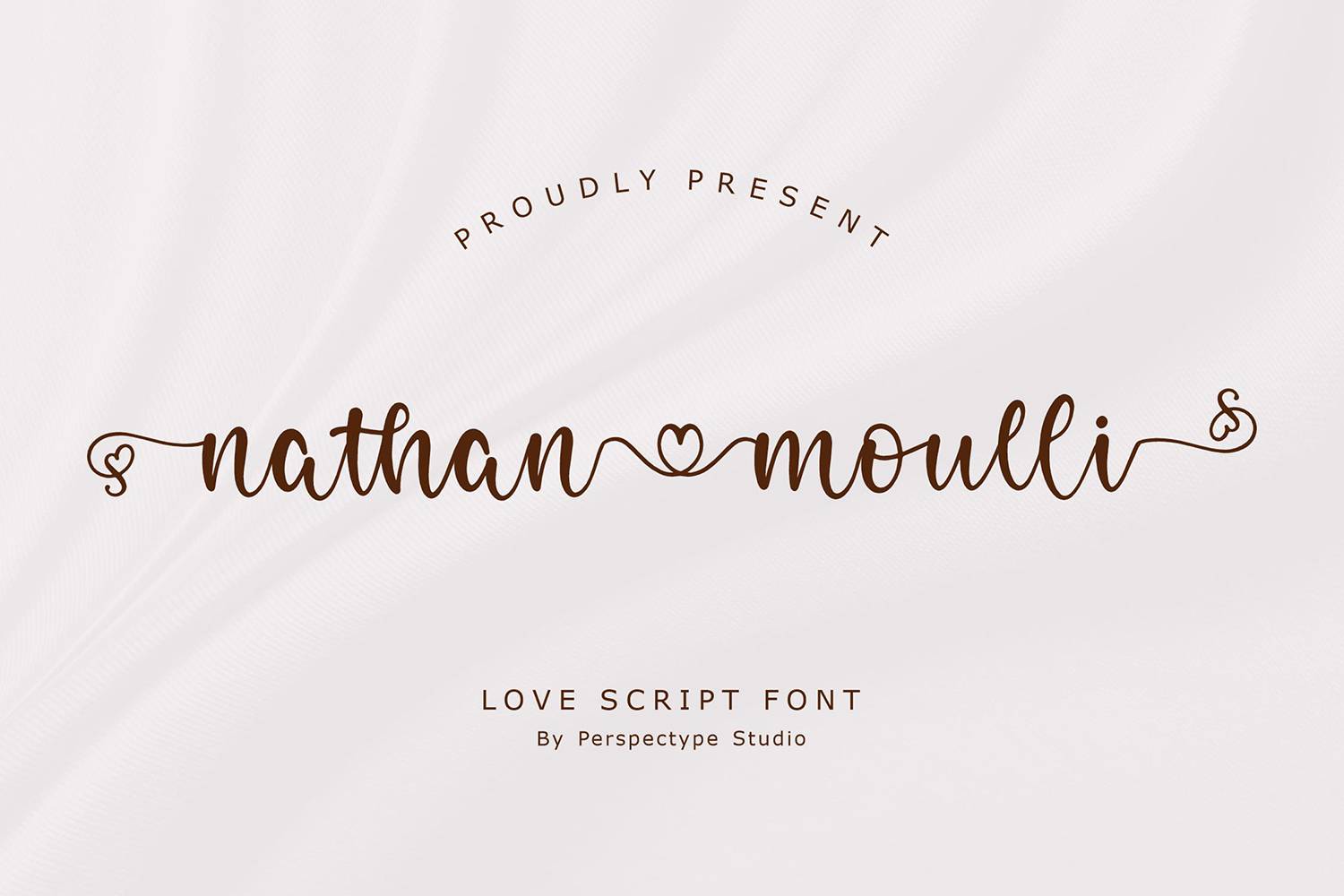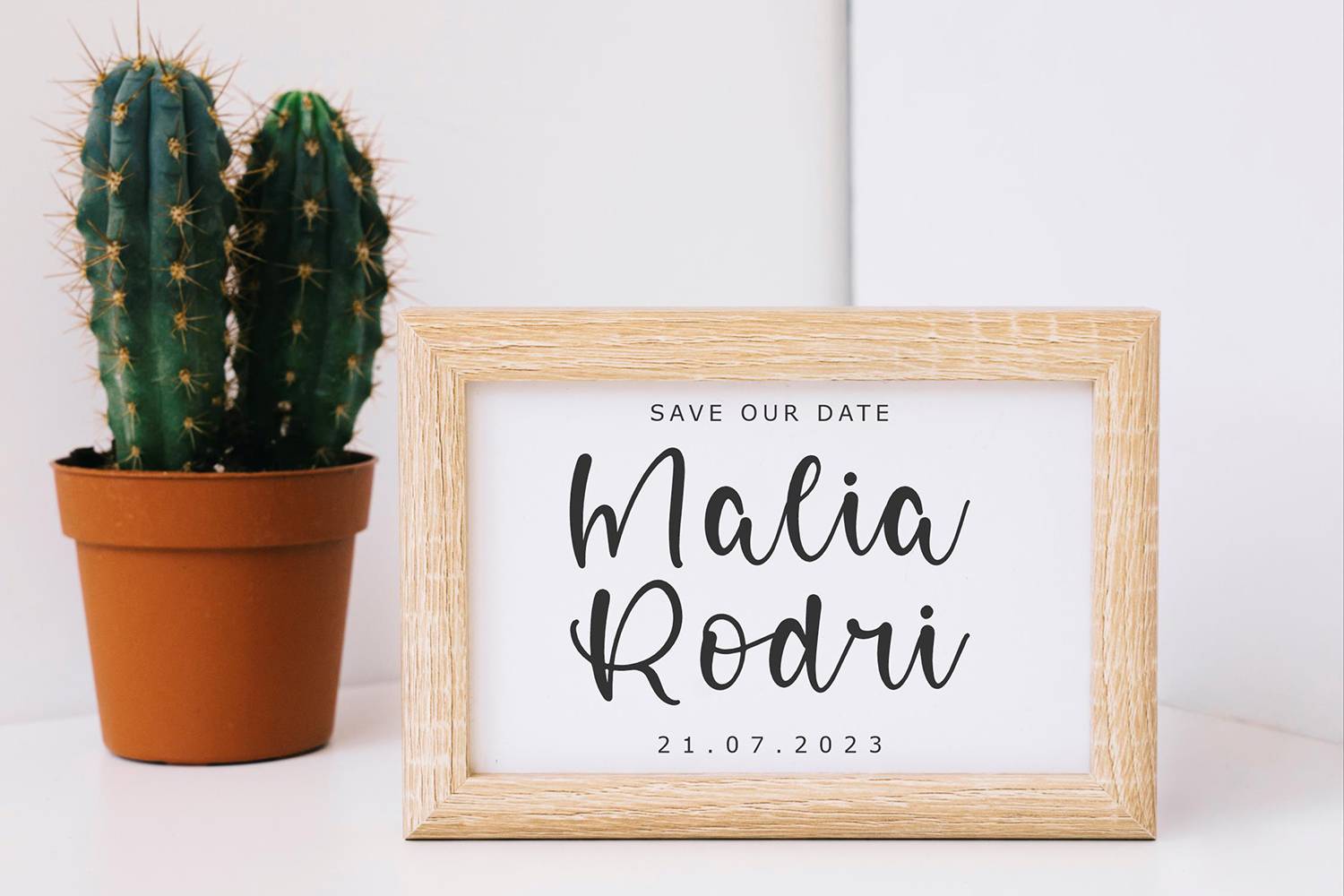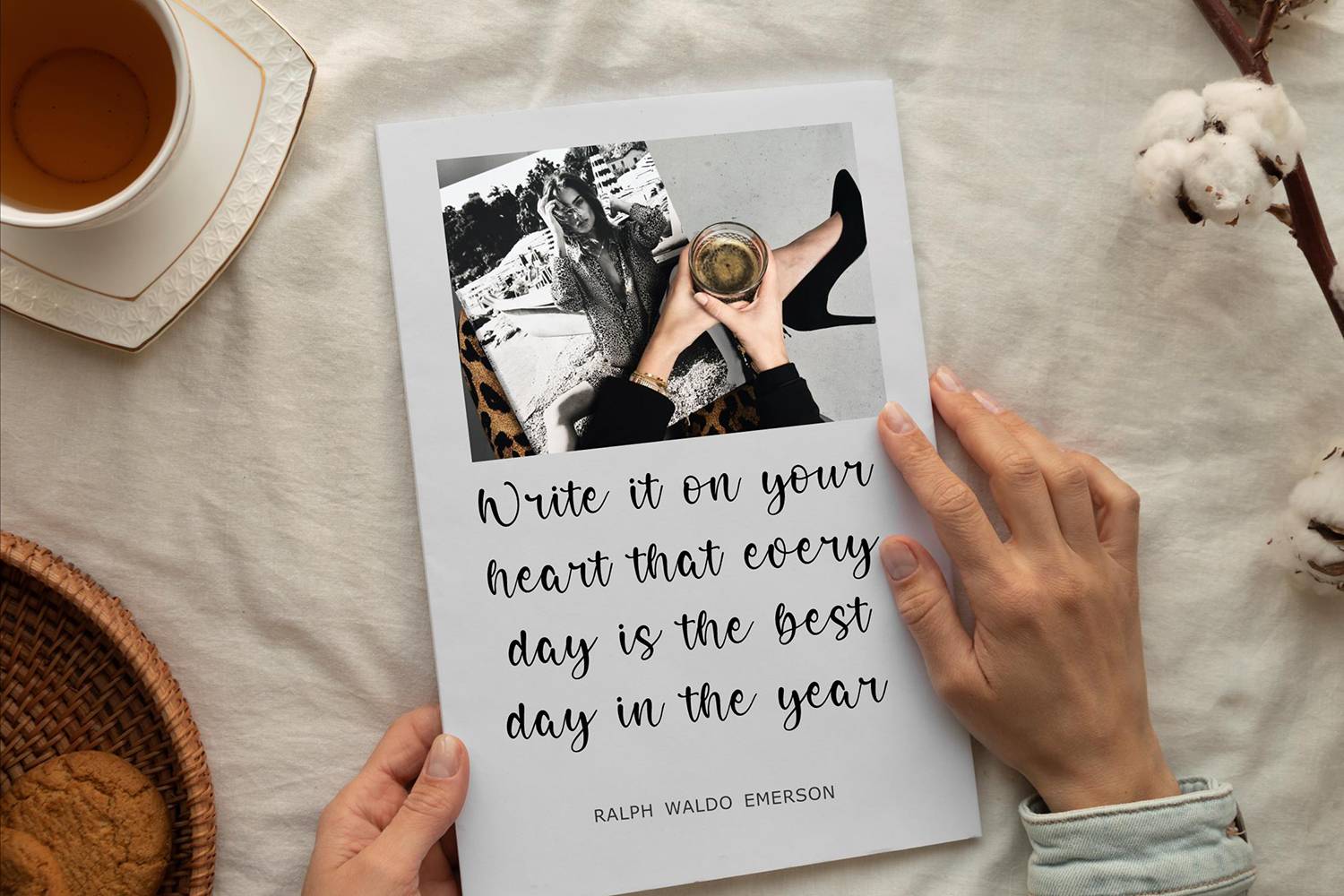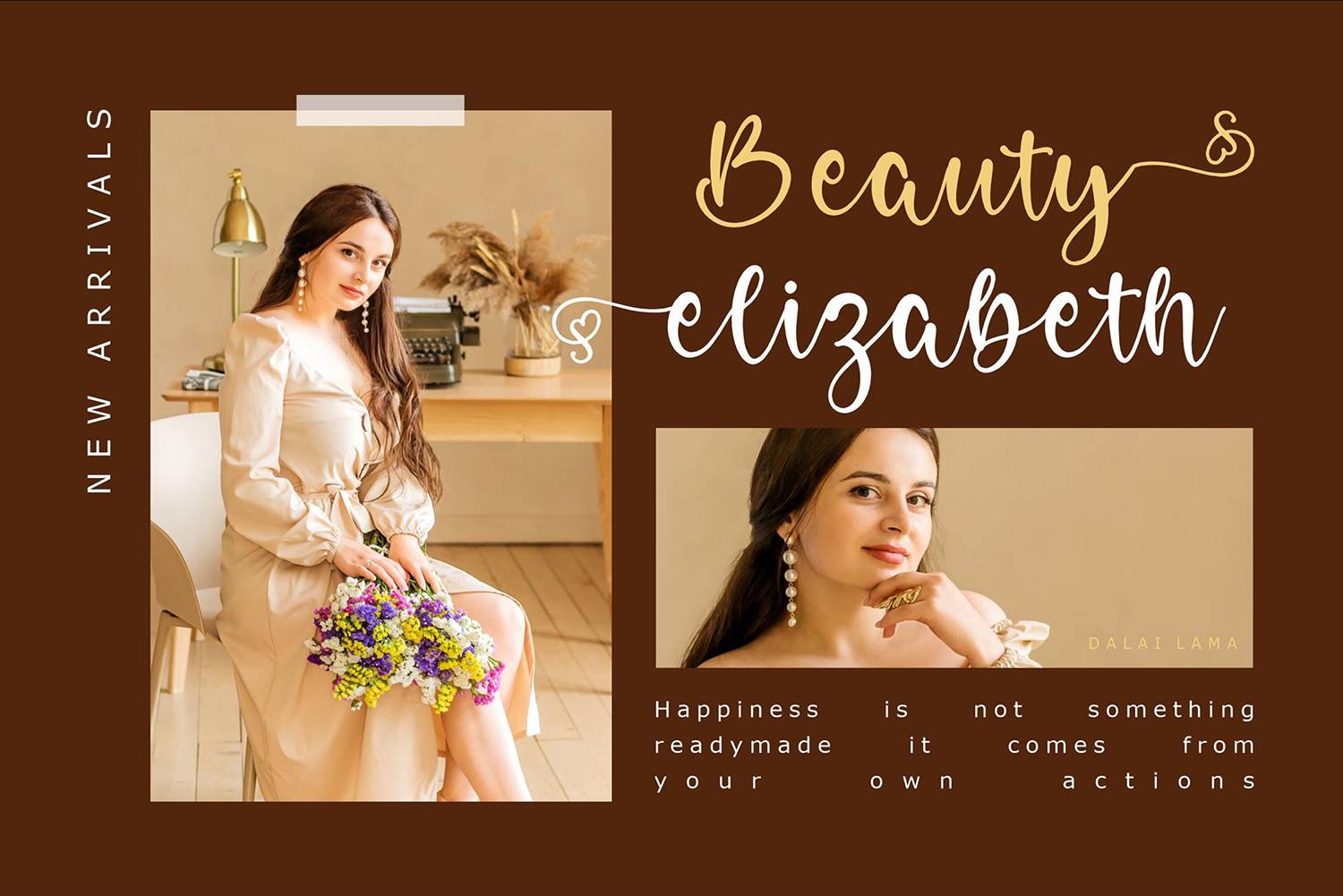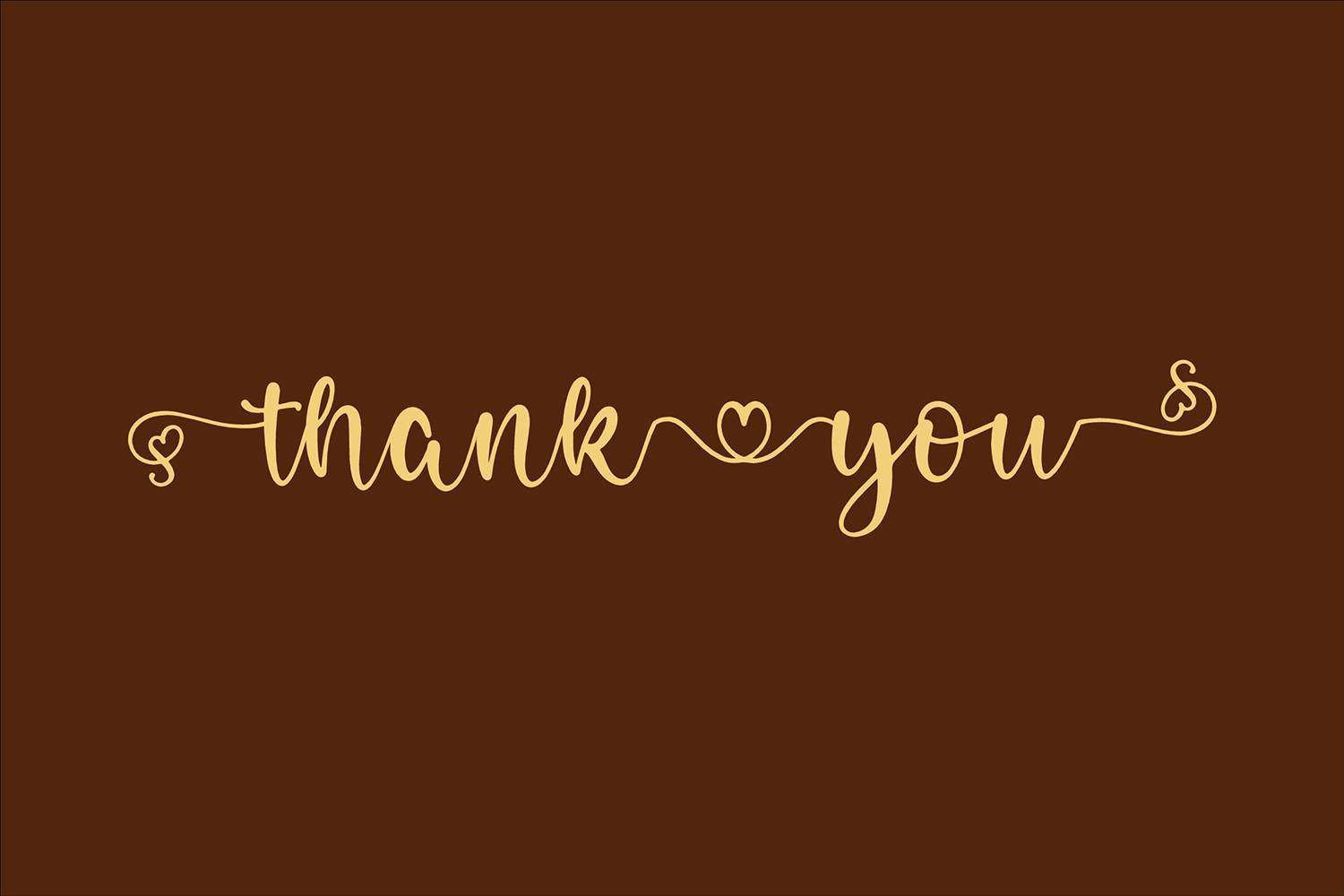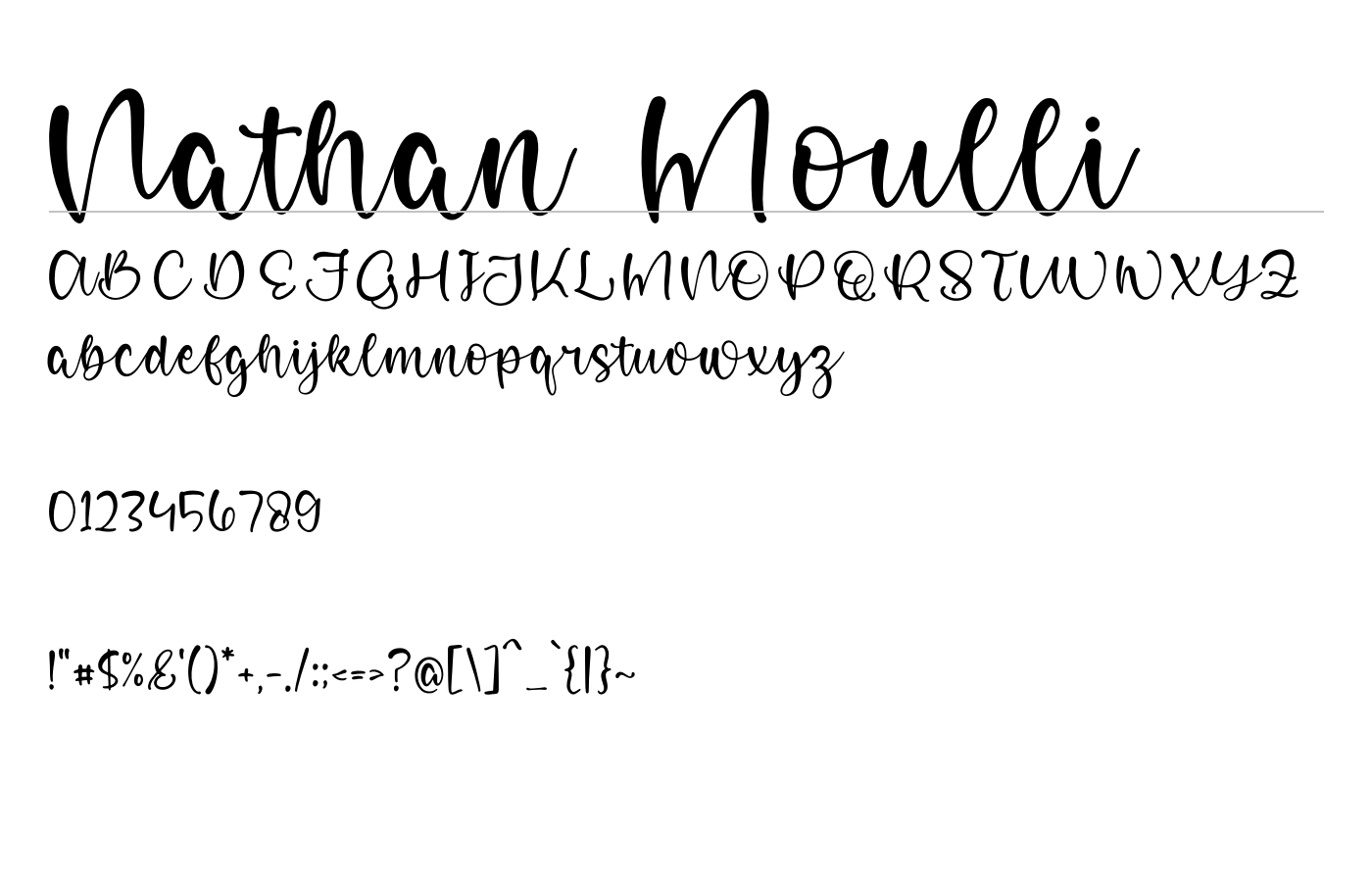
Nathan Moulli is a charming handwritten script font that combines a casual yet elegant style with smooth, flowing strokes and a natural, personal touch. Its medium weight and moderate contrast give it good readability while maintaining a warm and inviting feel, making it perfect for lifestyle branding, invitations, and creative projects where a friendly, approachable look is desired. This font works best in headlines, logos, and packaging that seek to convey sincerity and artistic flair.
Nathan Moulli Font
About Nathan Moulli Font